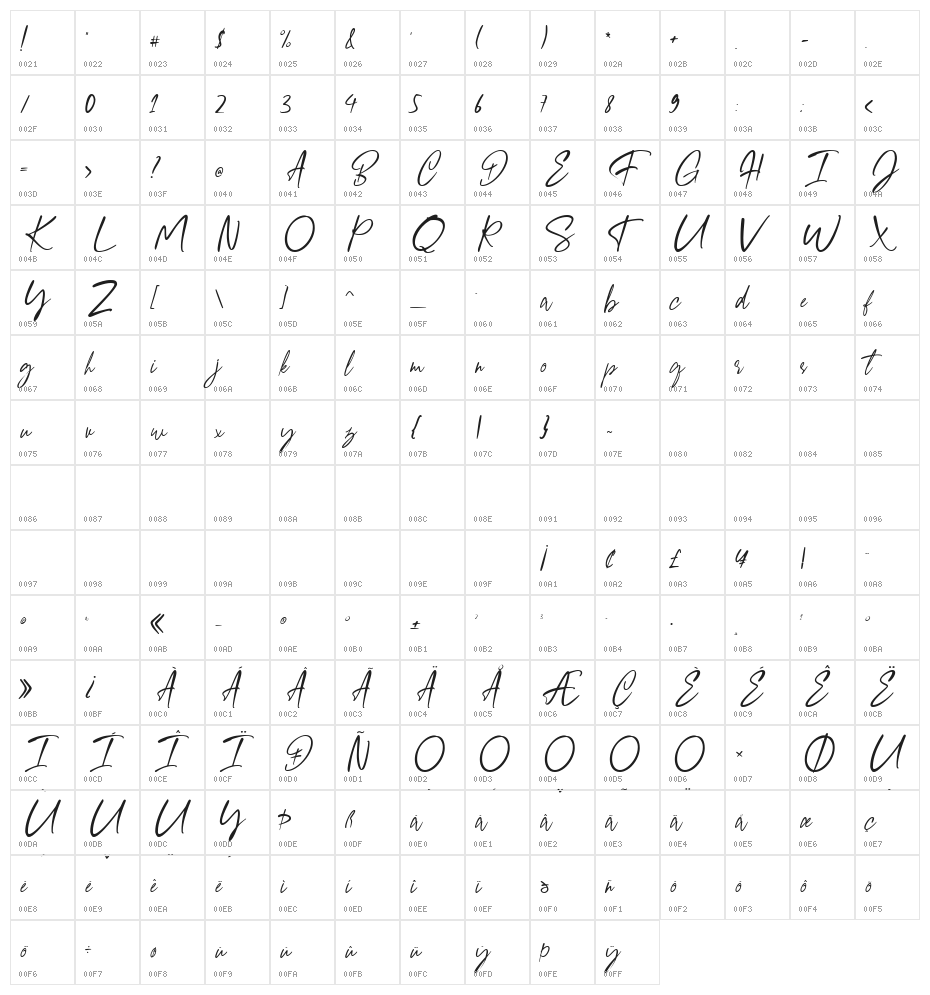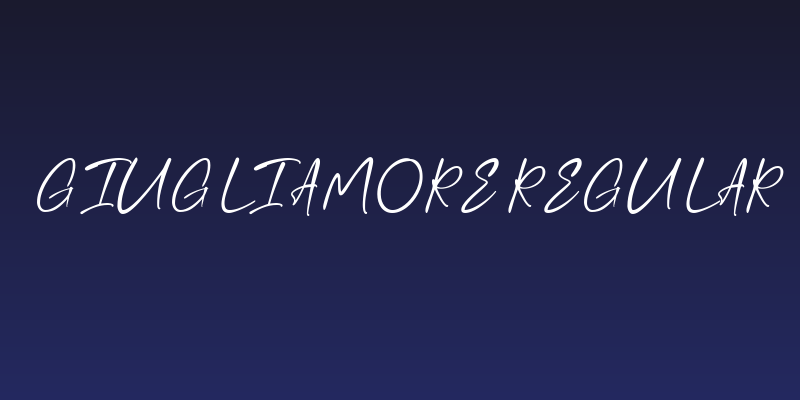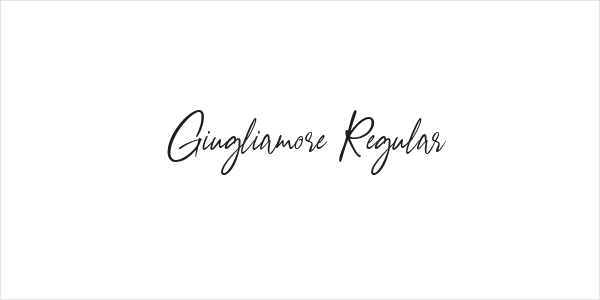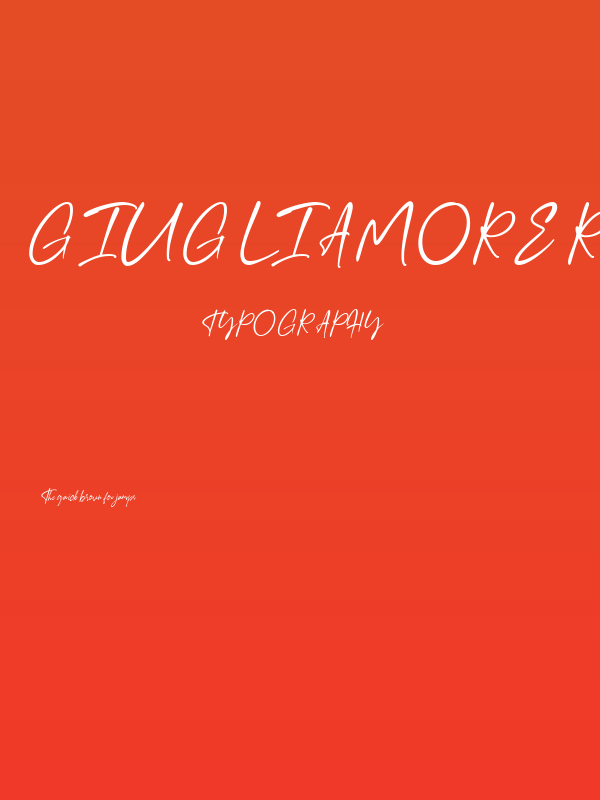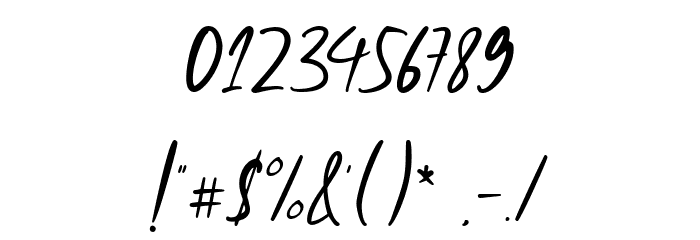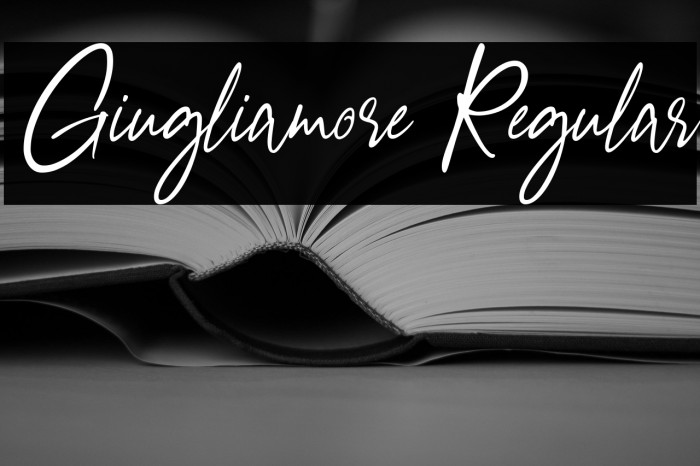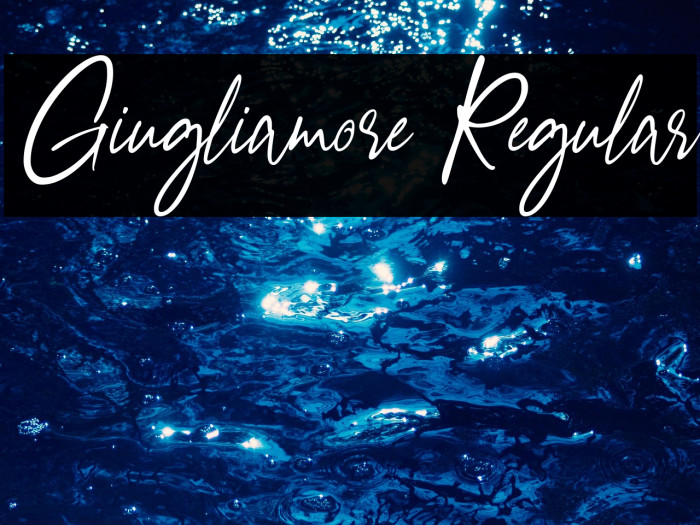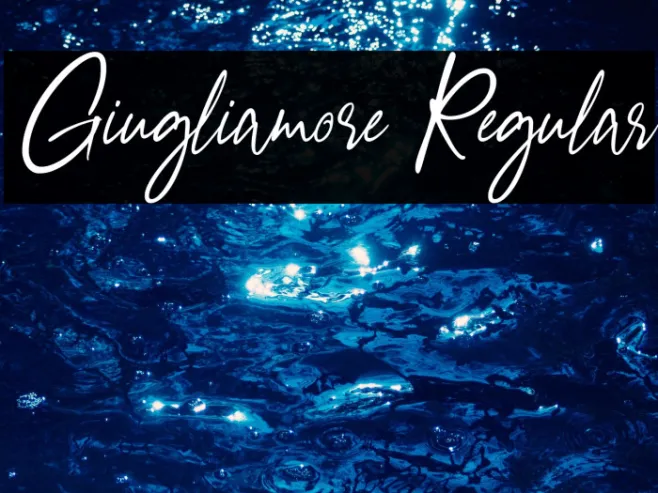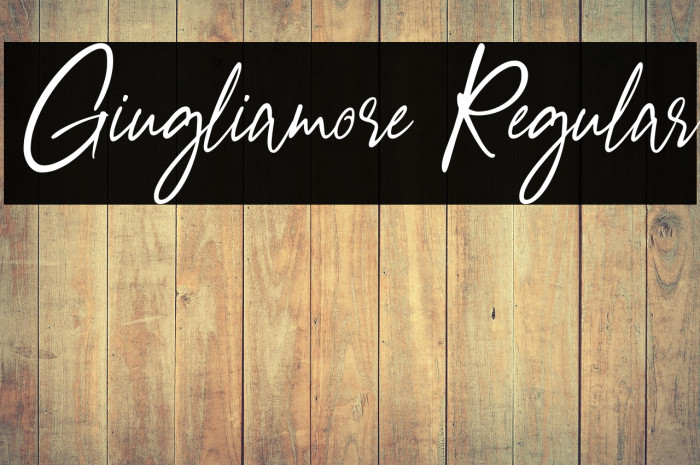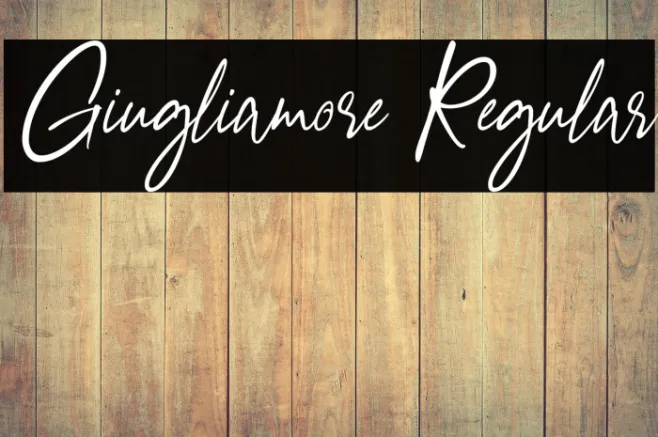
Giugliamore Regular Font
Giugliamore Regular Description
This font features a flowing, cursive style that mimics elegant handwriting. The uppercase letters are bold and sweeping, with a distinct flair that adds a touch of sophistication. The lowercase letters maintain a consistent fluidity, enhancing the script-like appearance. Numbers and special characters are designed to complement the overall style, ensuring a cohesive look. The font's strokes vary in thickness, providing a dynamic and lively feel. It's perfect for projects that require a personal, artistic touch, such as invitations, greeting cards, or branding materials.
| Use Case | Headlines, Invitations, Branding |
| Proposed Projects | Ideal for wedding invitations, personal branding, greeting cards, and artistic projects. |